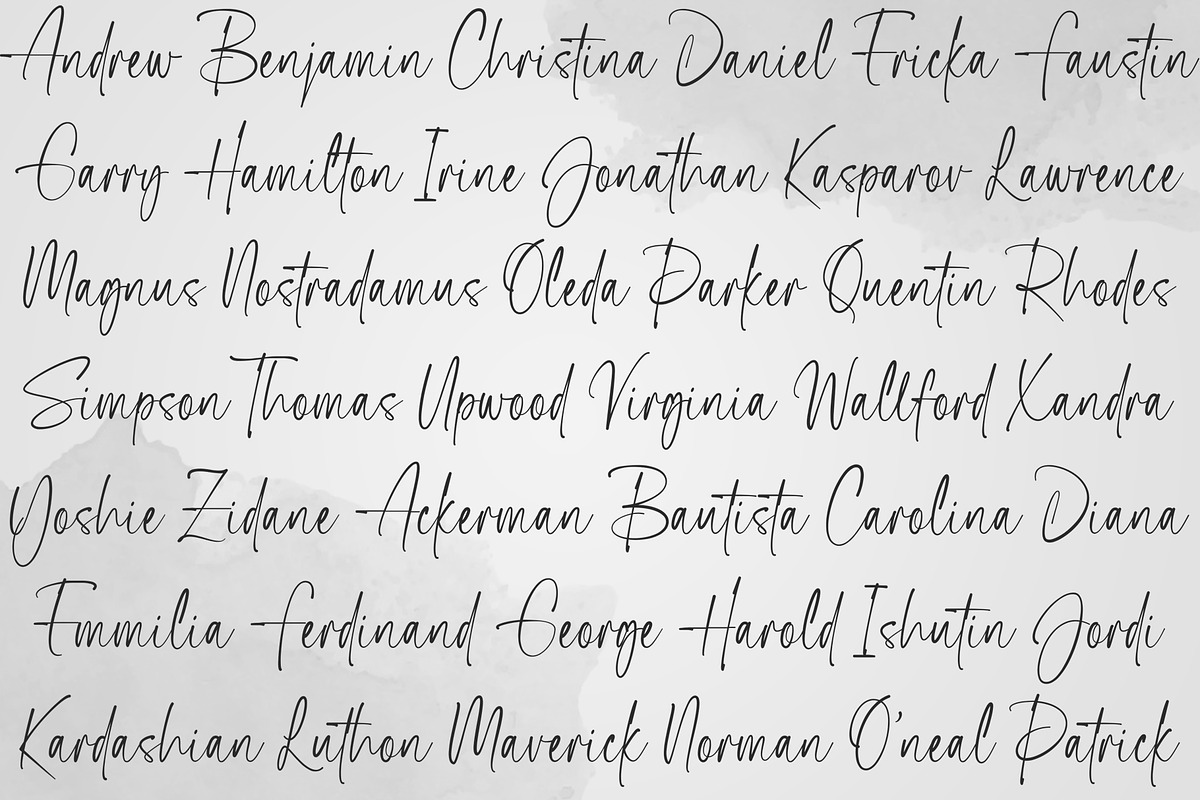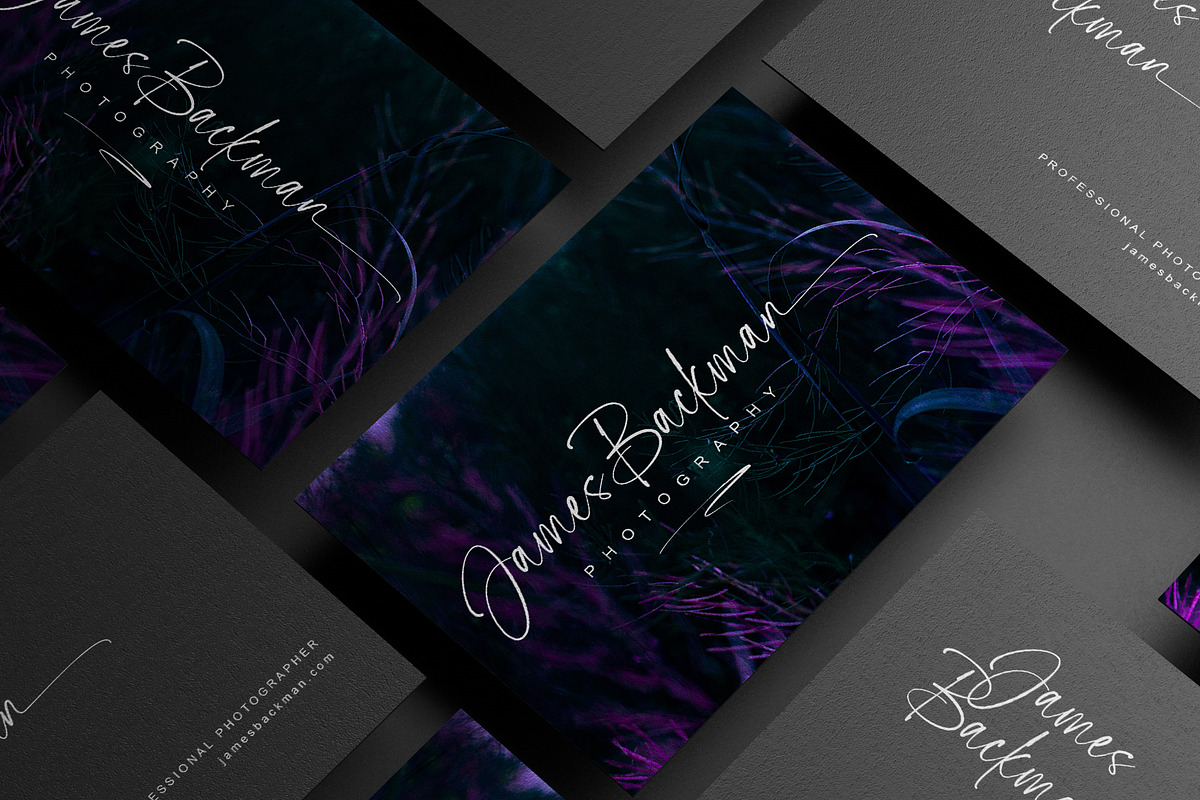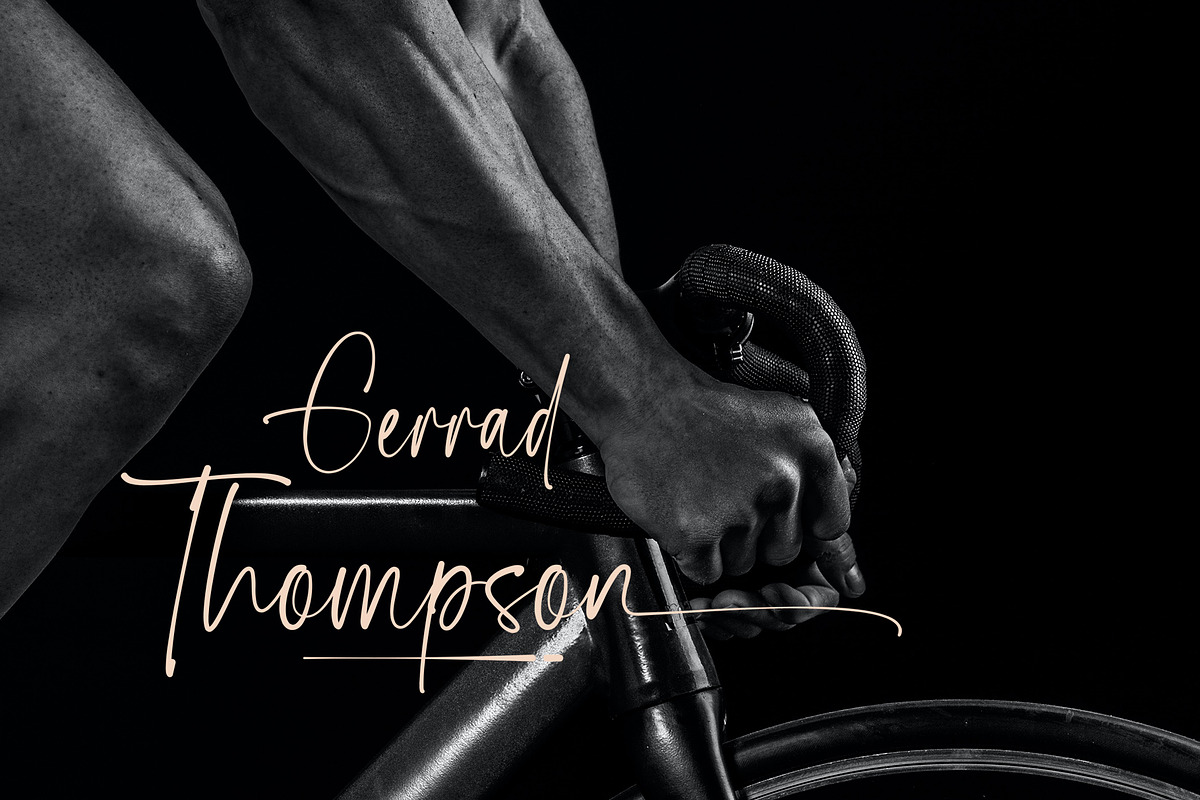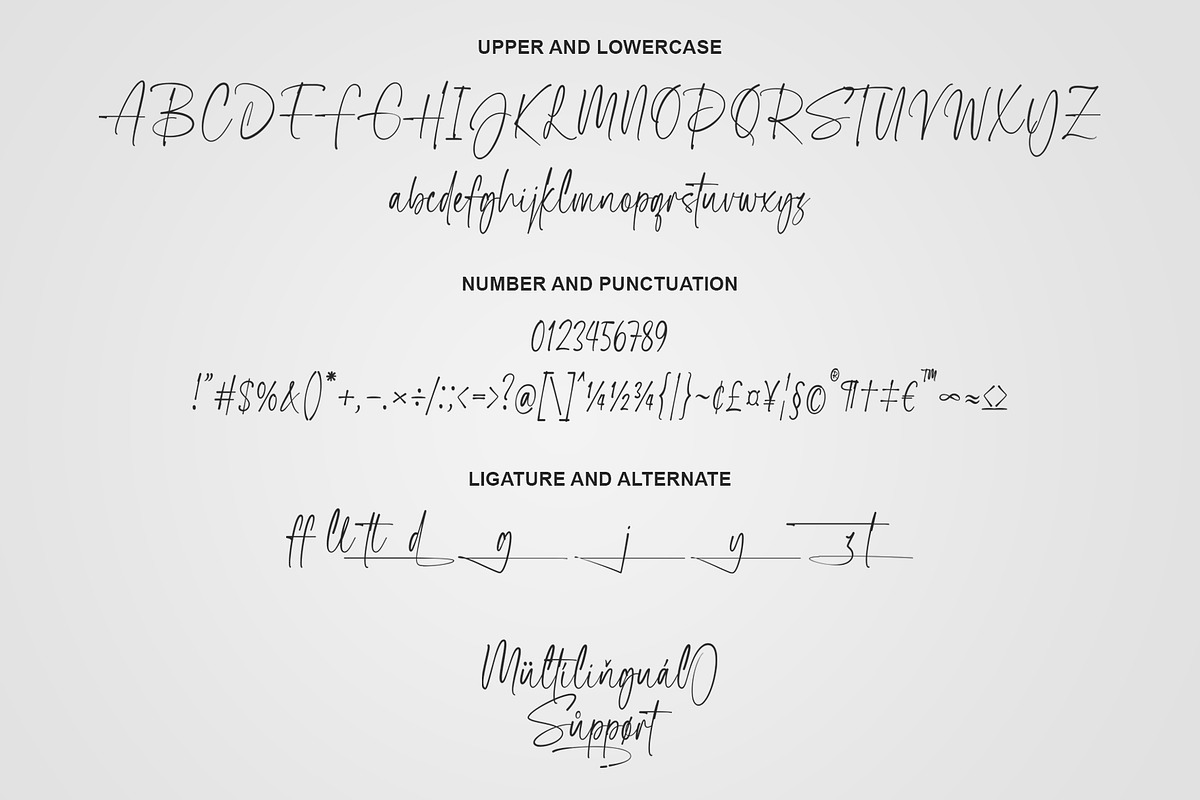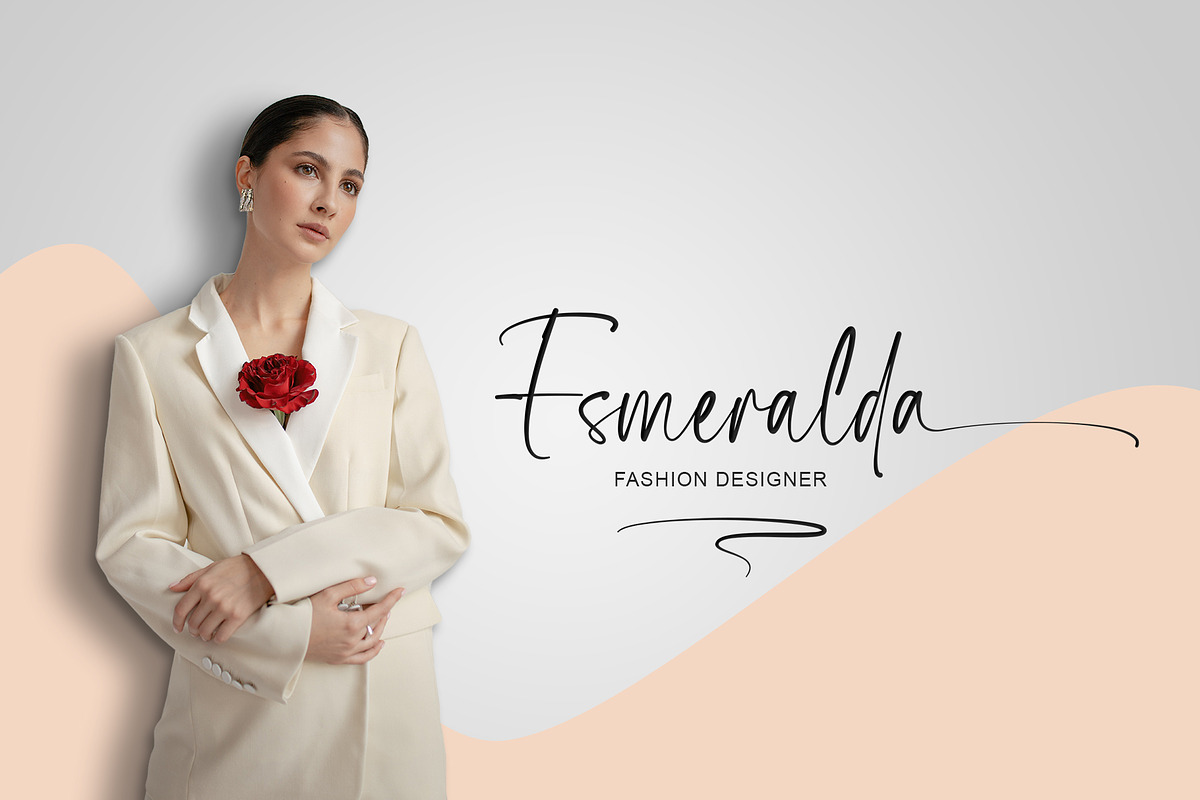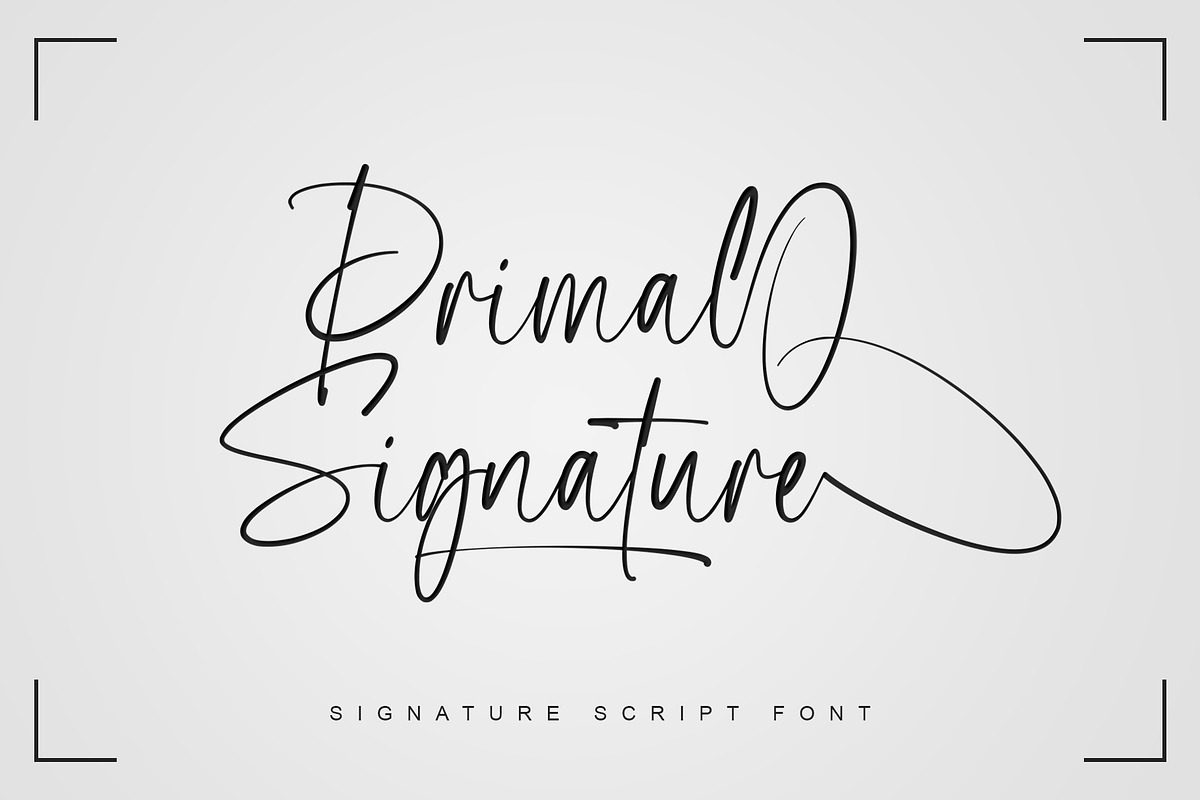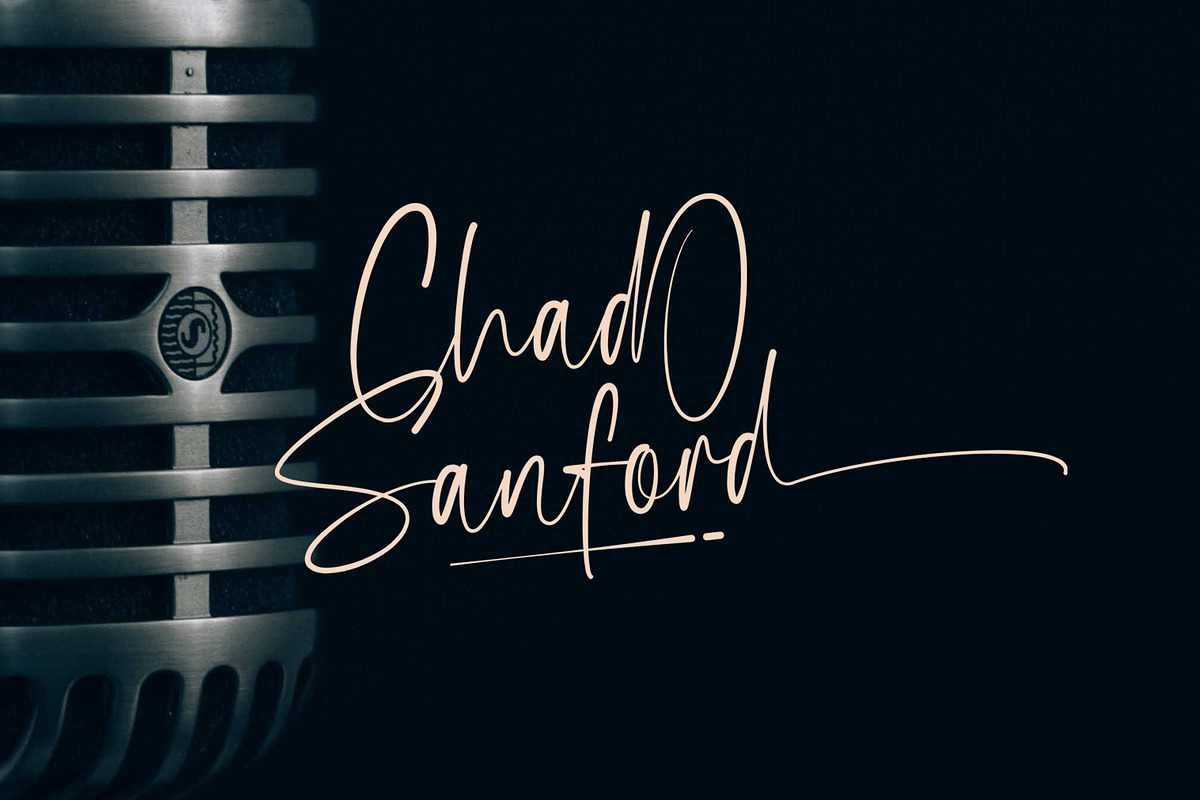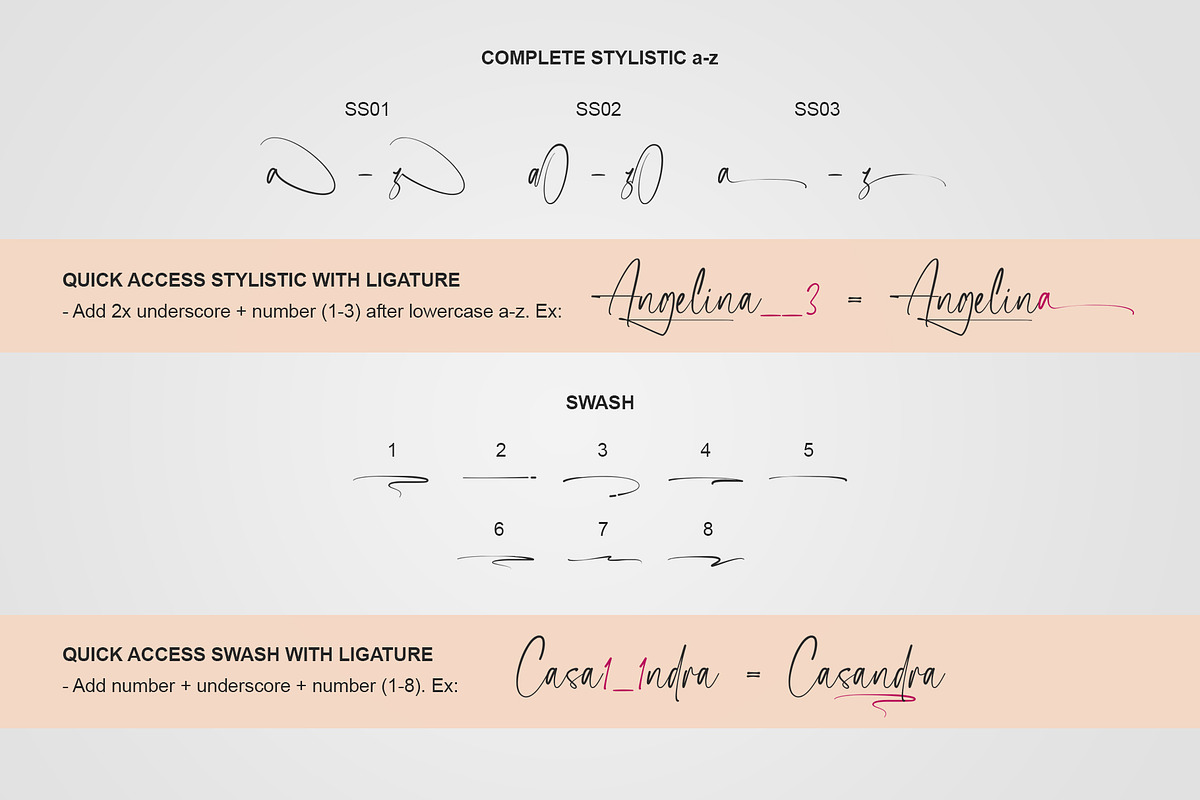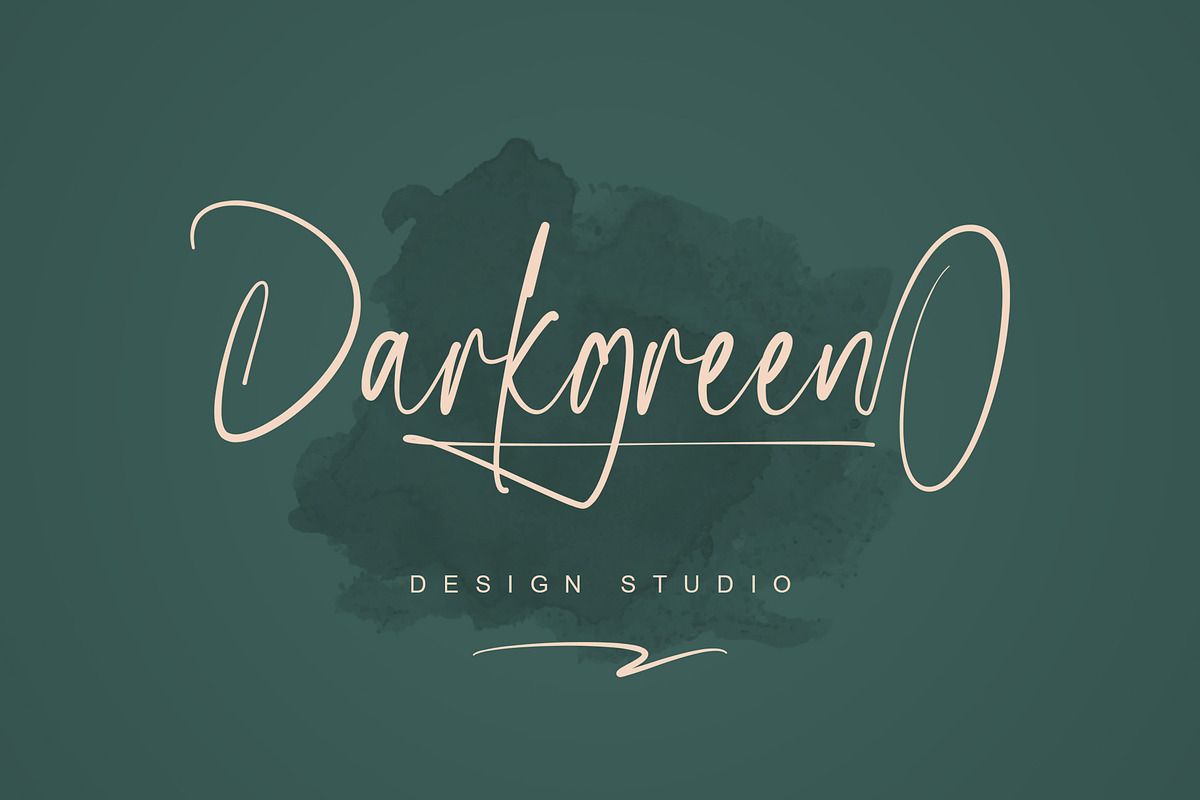
Primal Signature | Signature Script
Primal Signature is a perfect signature font, with a natural & stylish flow. Primal Signature Font is perfect for many different project such as logos & branding, invitation, stationery, wedding designs, social media posts, advertisements, product packaging, product designs, label, photography, special events or anything.
- Stylistic Set
- Stylistic Set: Add 2x underscore + number (1-3) after lowercase a-z. Ex: __1
- Swash: Add number (1-8) + underscore + number (1-8). Ex: 1_1, 2_2, 3_3, 4_4, 5_5, 6_6, 7_7, 8_8